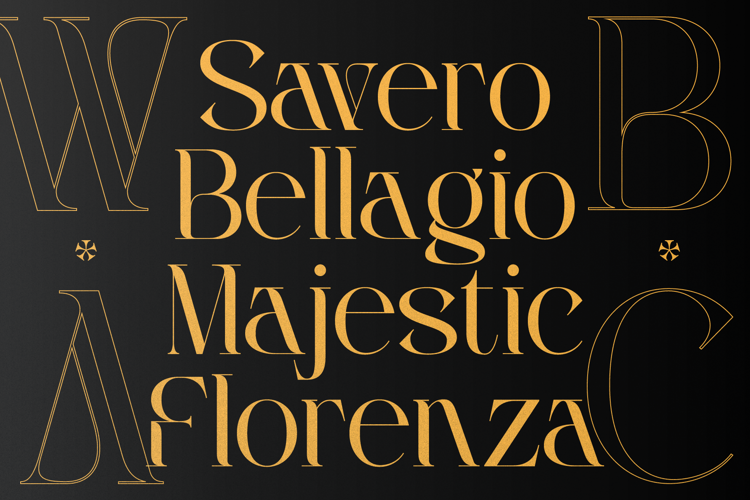
Welp Clair Font
Welp Clair | Display Serif, is suitable for any projects such as: logos, branding projects, homeware designs, product packaging, mugs, quotes, posters, shopping bags, t-shirts, book covers, name card, invitation cards, greeting cards, label, photography, watermark, special events, and all your other lovely projects that need a Serif taste.